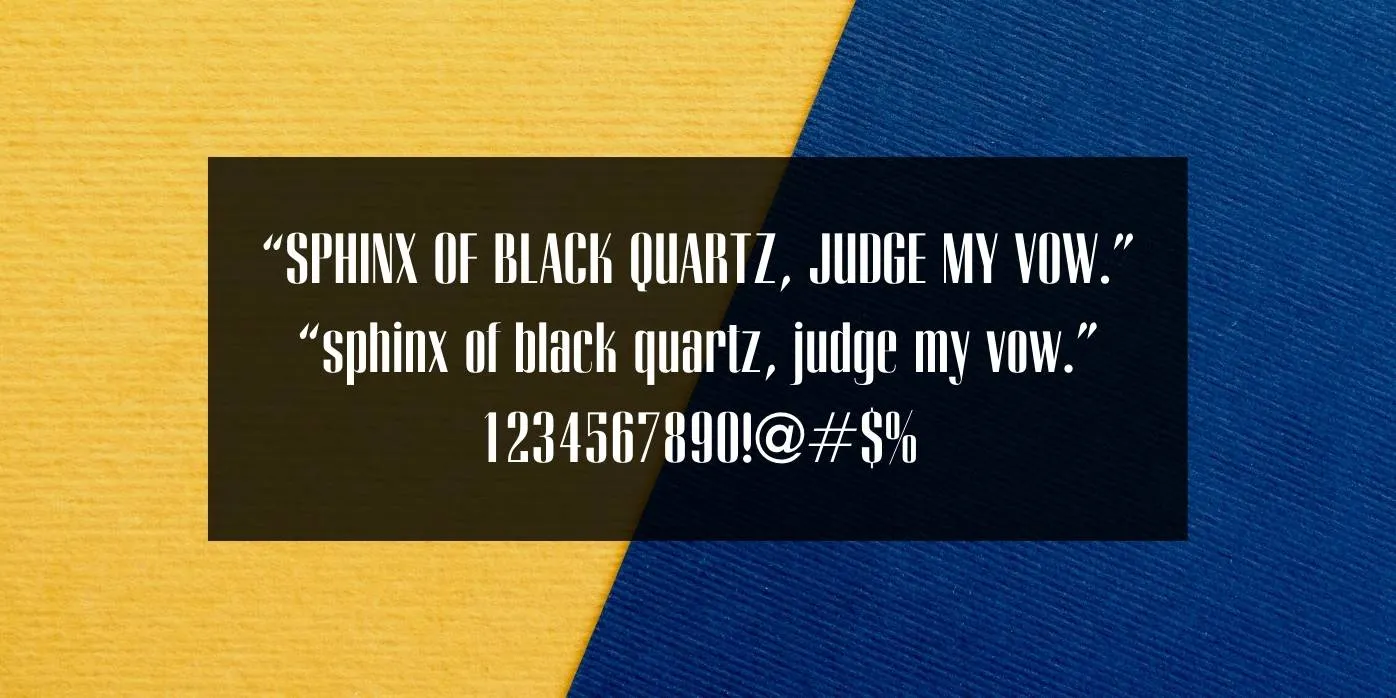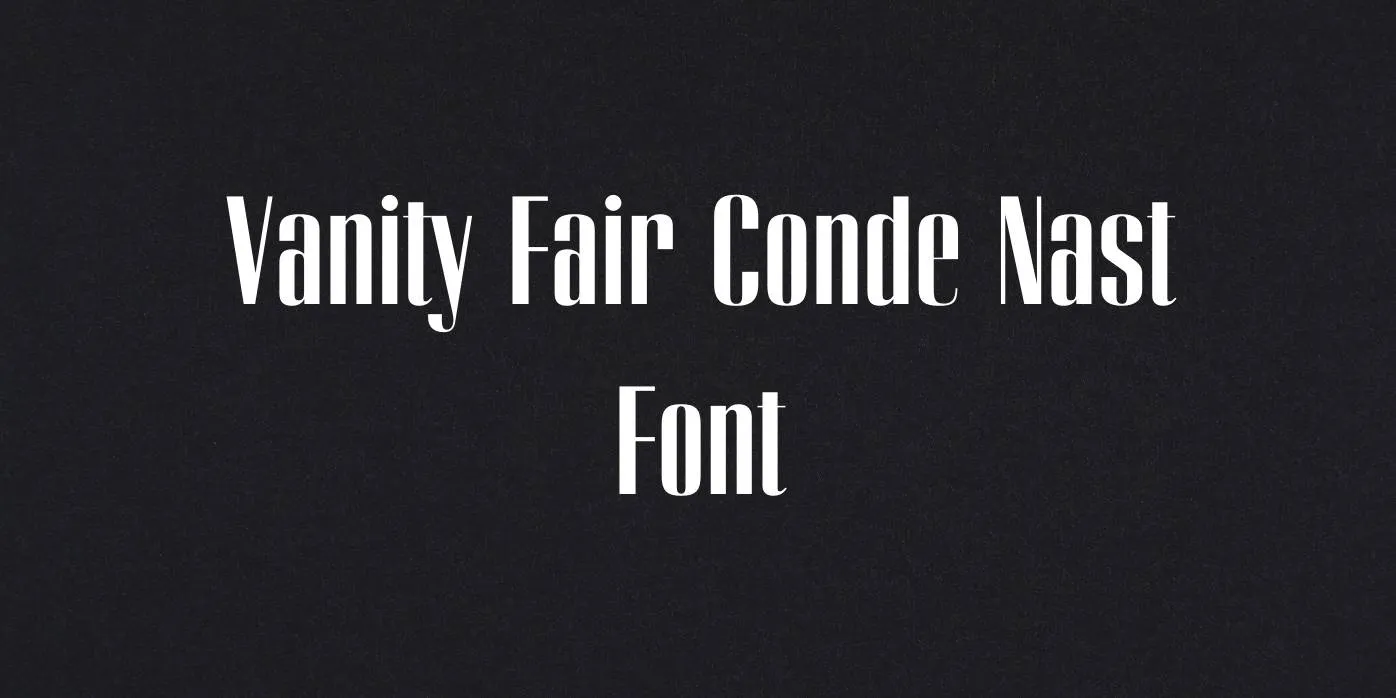
Vanity Fair Conde Nast Font
Today, we introduce a modern typeface known as Vanity Fair Conde Nast Font. This family belongs to the serif family. OPTIFONT is the developer of this family. This family supports many international languages.
This family is widely used by graphic designers and web designers for various purposes. This font is suitable for both text and headlines. You can use this font for branding, logos, prints, etc. The copy-and-paste function of this typeface is suitable for a lot of designs.
You can use galliard font which has the same style and characters as this one. There are also fractions and ordinals included in this family. If you are looking for a modern typeface with a classic touch, then Vanity Fair Conde Nast Typeface is the perfect choice for you. The generator tool of this family is suitable for various designs.